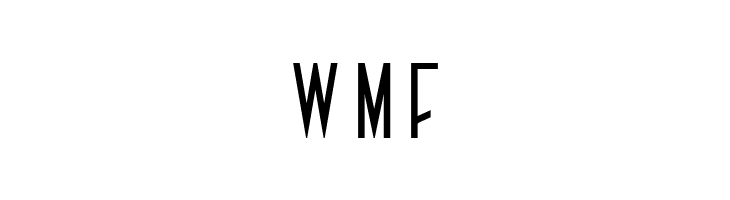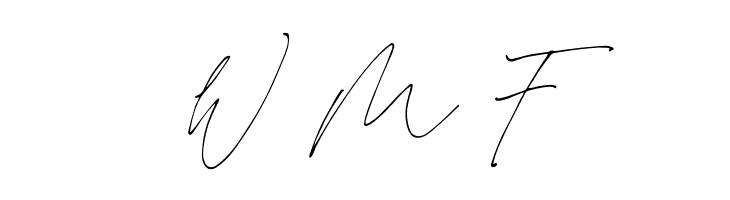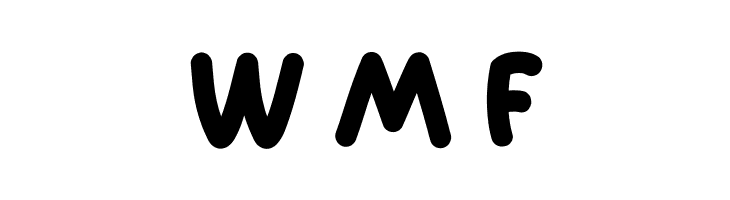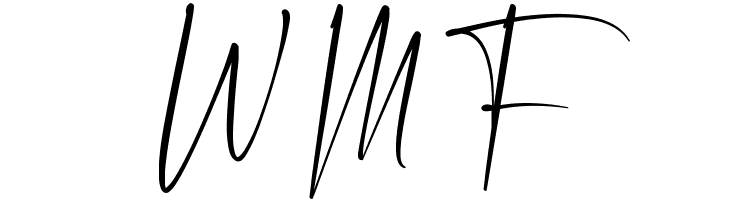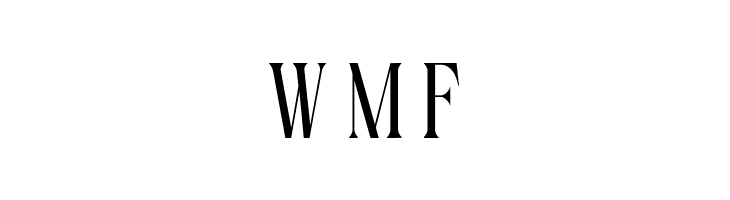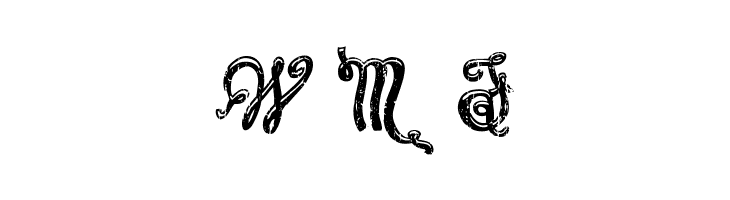
Expressive handwritten script with tall, narrow forms and variable stroke thickness.
An elegant, flowing script font with a modern twist and medium contrast.
A flowing, elegant script font with a handwritten style.
A decorative font with Victorian-inspired illustrations integrated into each character.
A playful, bold font with rounded, hand-drawn characters.
A bold, rounded font with a playful, handwritten style.
A playful, bold font with rounded, thick strokes and a whimsical style.
A playful and flowing script font with elegant, cursive strokes.
A modern, dotted font with a pixelated effect, ideal for creative projects.
A modern, dotted font with a geometric, pixelated style.
A graceful and elegant script font with flowing, cursive letters.
A flowing, cursive script font with elegant, connected strokes.
A modern, narrow sans-serif font with consistent stroke width and elongated characters.
A sophisticated handwritten font with fluid, cursive strokes and elegant character connections.
An elegant, cursive font with flowing lines and delicate serifs.
A bold, brushstroke-inspired font with an artistic and expressive style.
A bold, hand-painted style font with an expressive, artistic flair.
A decorative, vintage-style font with distressed, ornate characters.
A playful, bold font with bubbly, rounded characters perfect for fun designs.
A classic serif font with medium contrast and elegant style.
A classic, oblique serif font with a Renaissance-inspired elegance.
A classic serif font with elegant, Renaissance-inspired design and moderate contrast.
A classic, oblique serif font with Renaissance elegance and moderate contrast.
A classic serif font with bold, elegant strokes and a Renaissance-inspired design.
A classic serif font with sharp serifs and balanced stroke contrast, exuding elegance.
A classic serif font with elegant curves and moderate contrast.
A classic, calligraphic serif font with elegant curves and sharp serifs.
A playful, handwritten font with rounded, irregular letterforms.
A dynamic, cursive script font with an expressive, italic style.
A bold, expressive handwritten font with fluid, dynamic strokes and a brush-like texture.